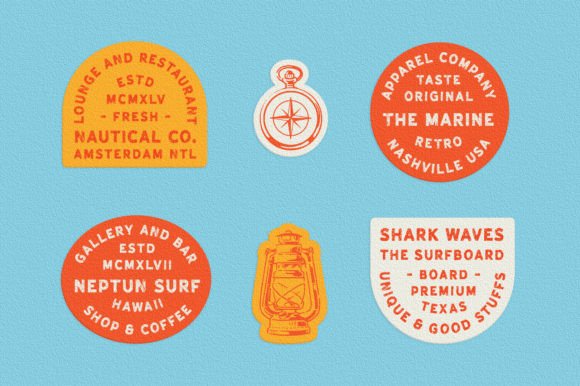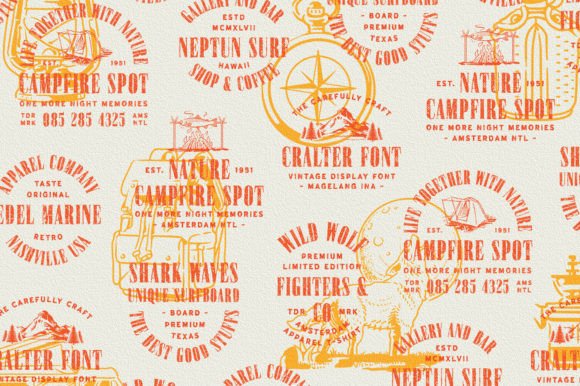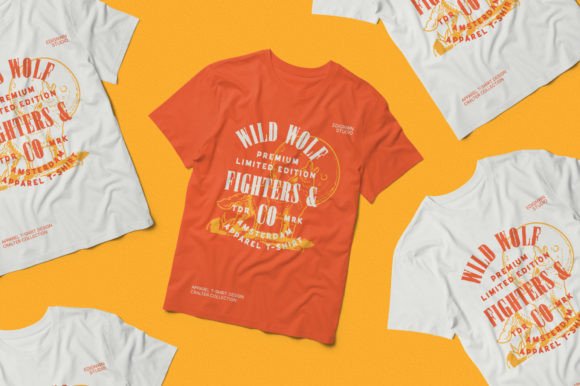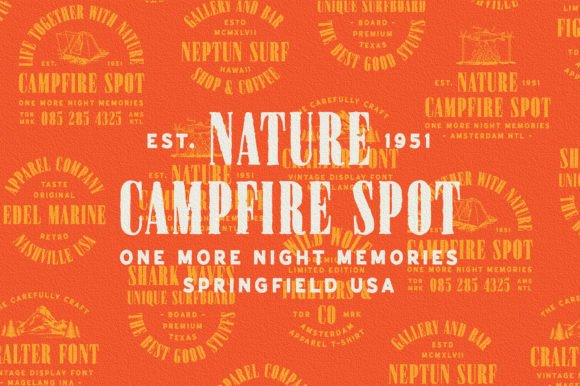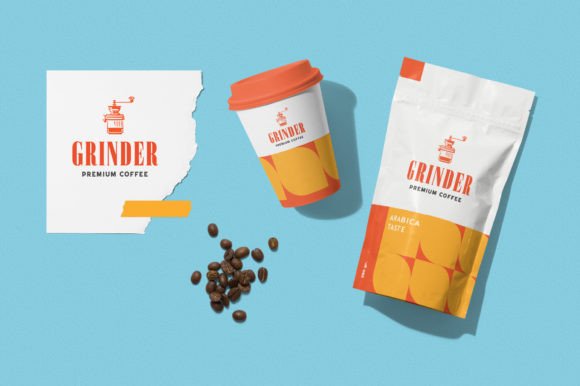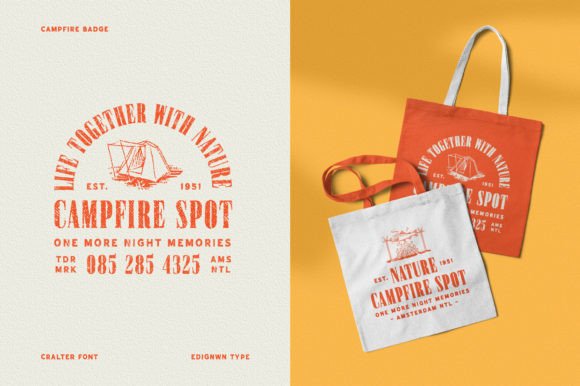
Introduction to Cralter Font
The Cralter Font is inspired by authentic typefaces in old posters.
These font collections contain serif and sans-serif fonts The Cralter matches designs such as logos, posters, labels, badges, packaging, t-shirts, branding, quotes, and more custom designs.